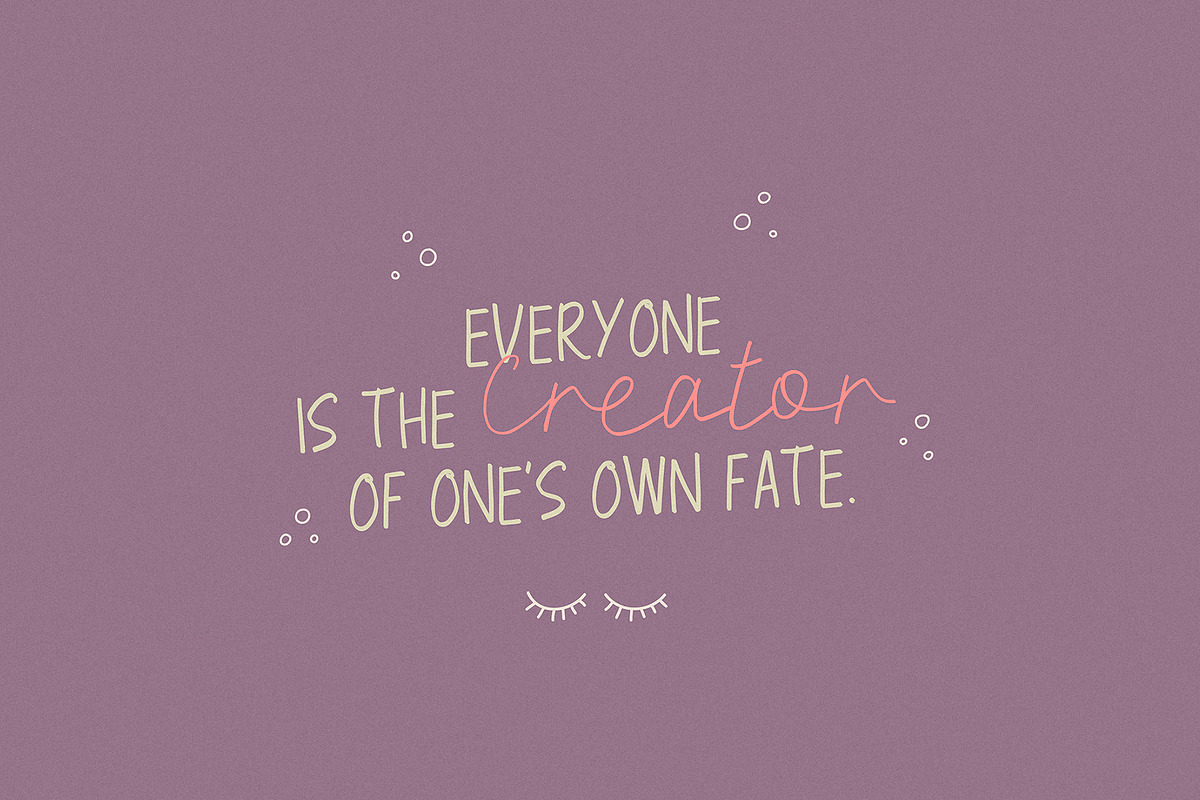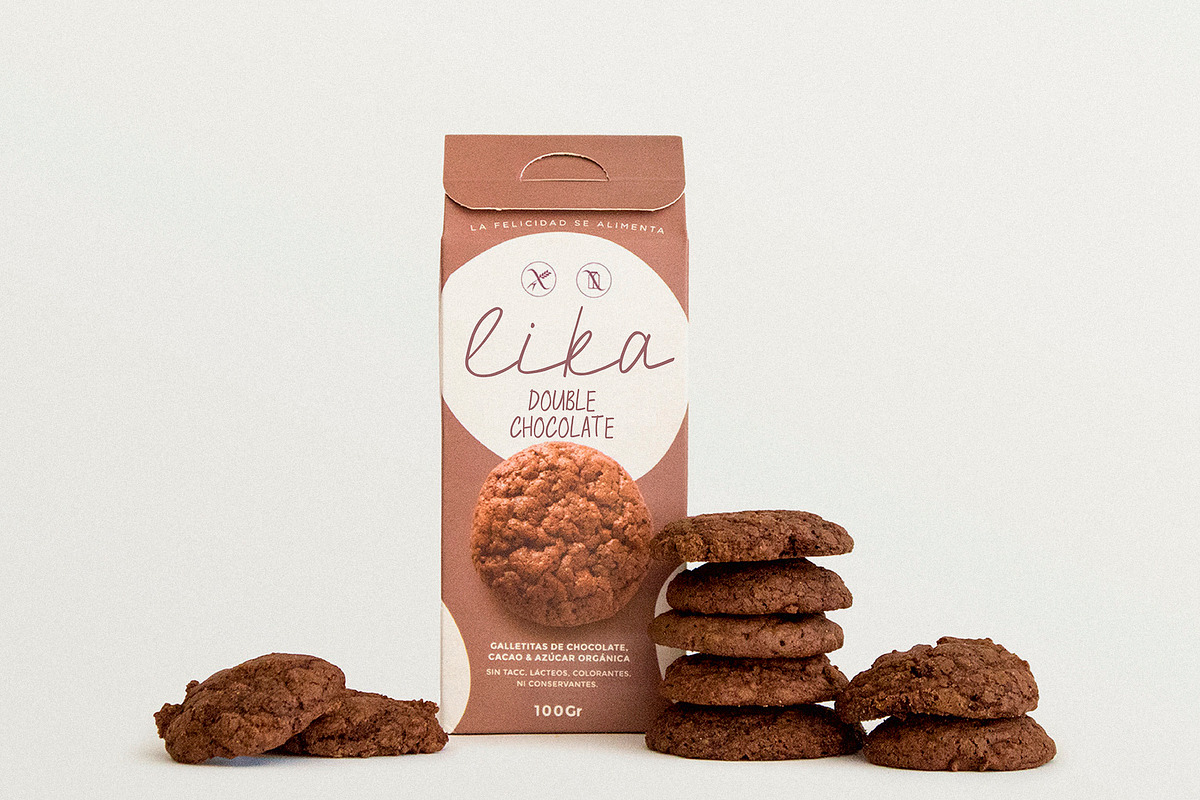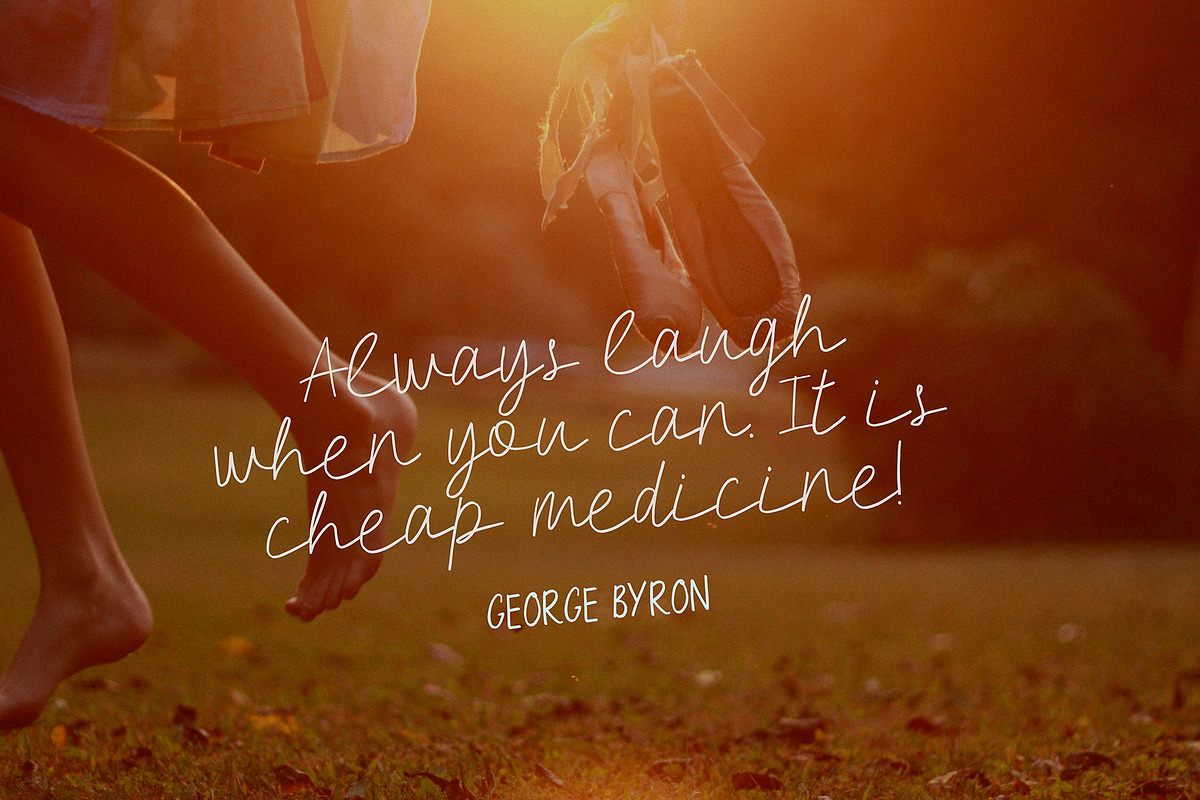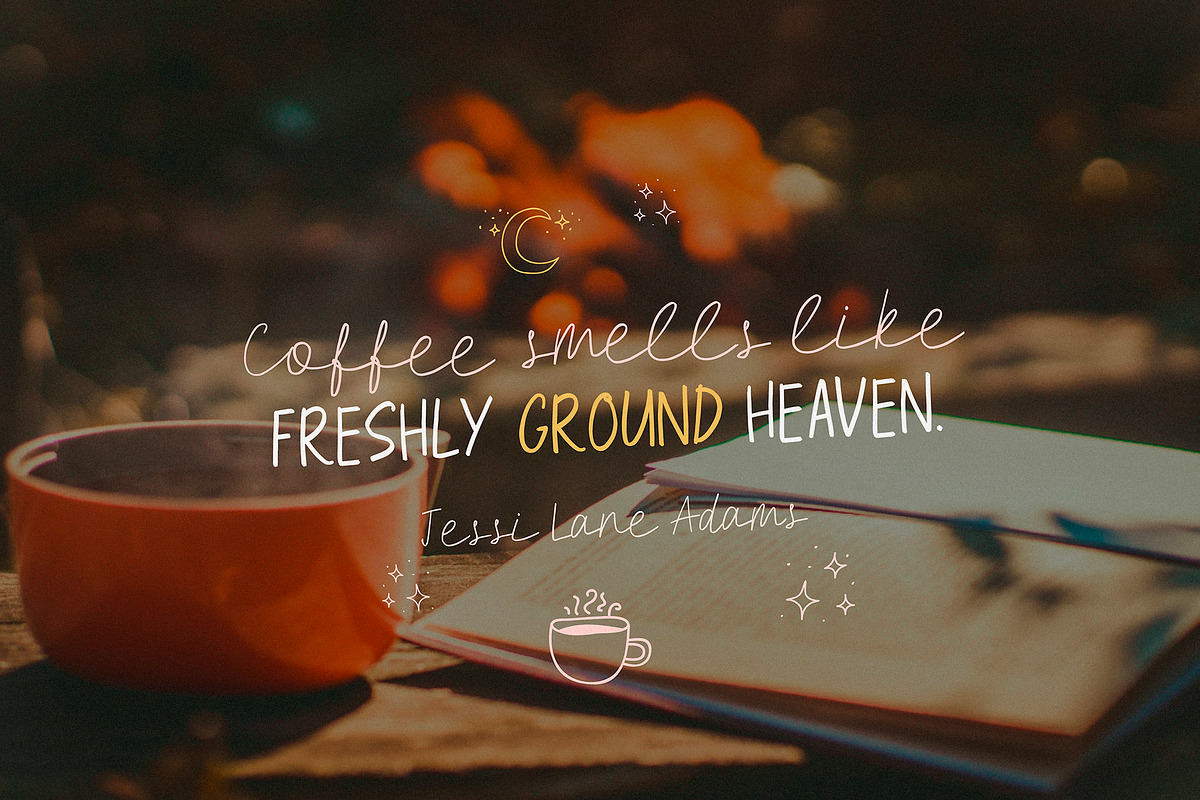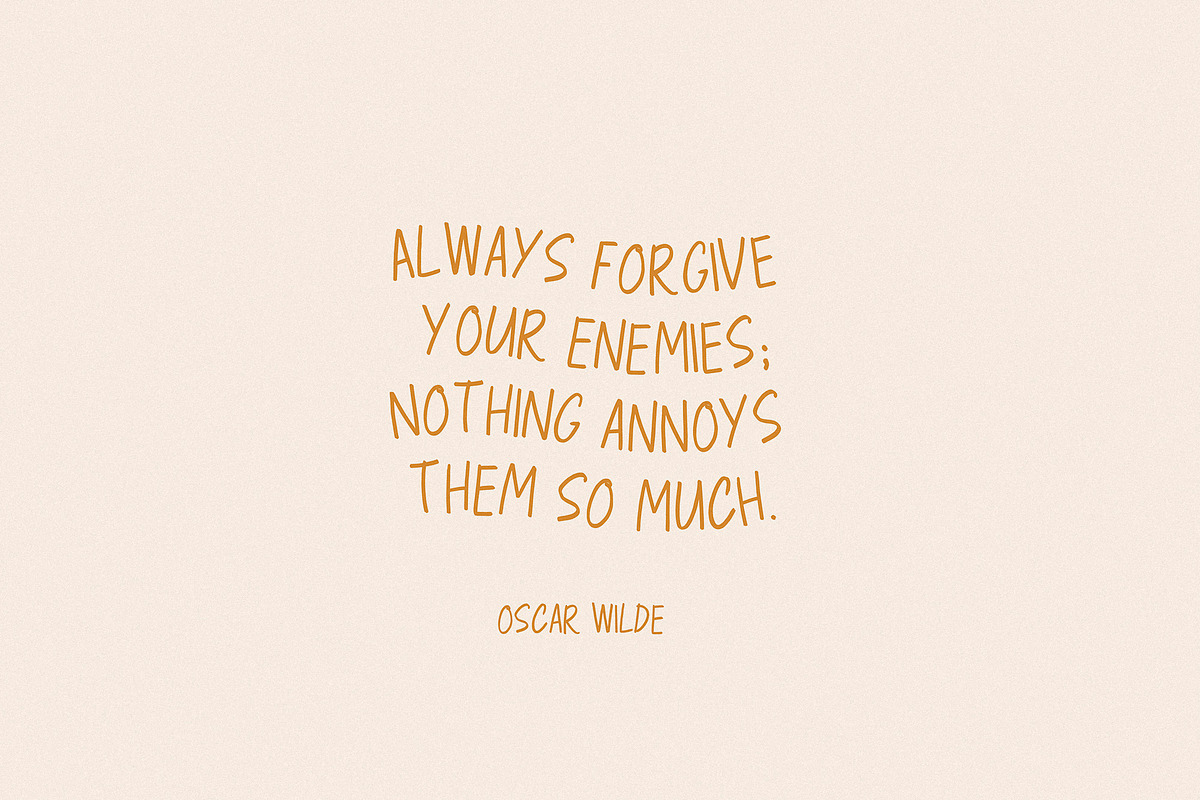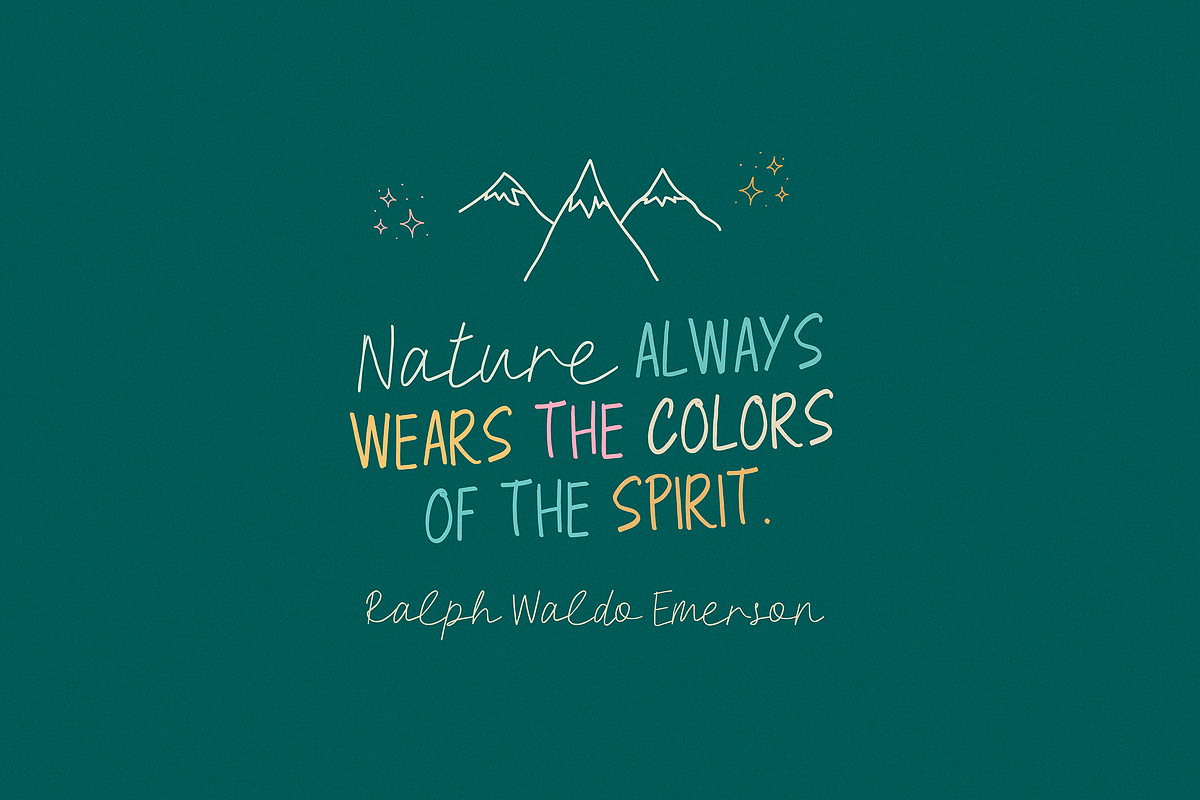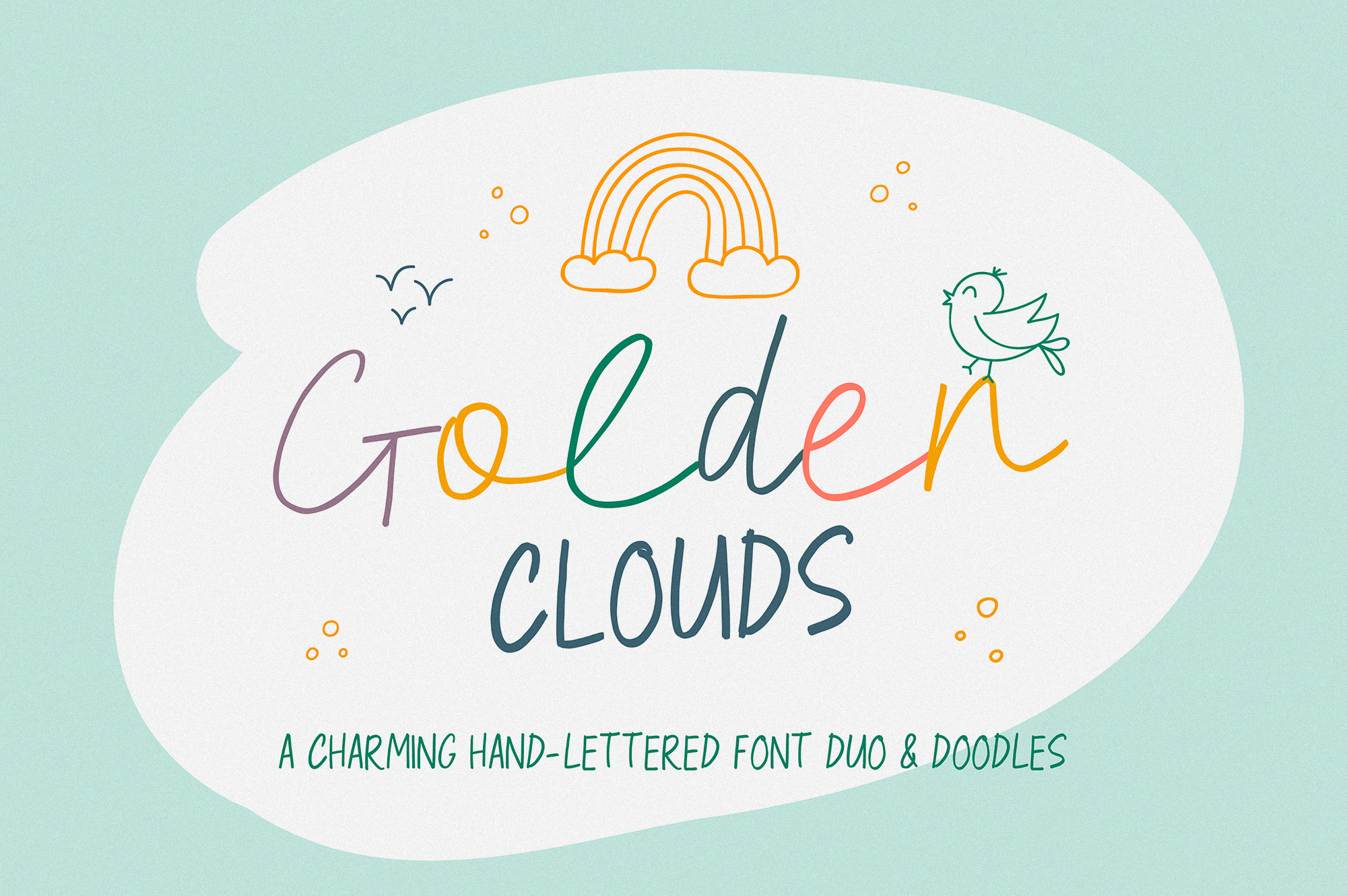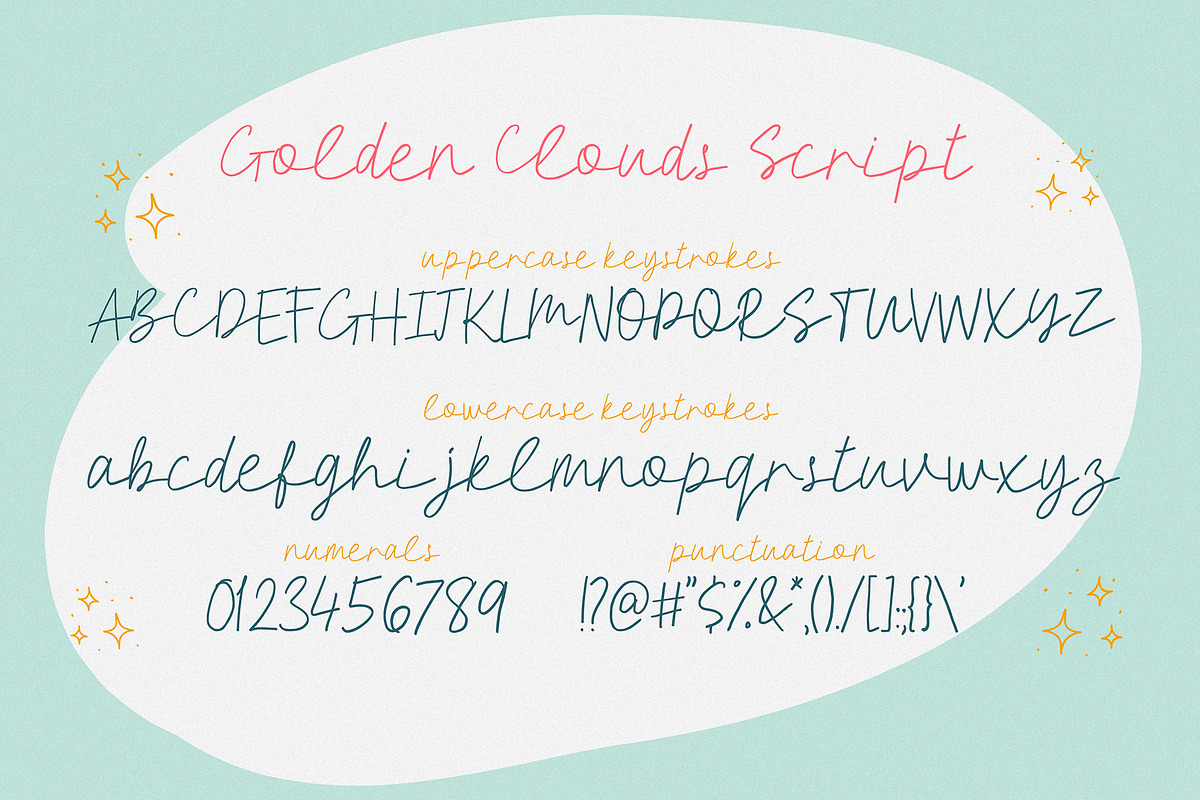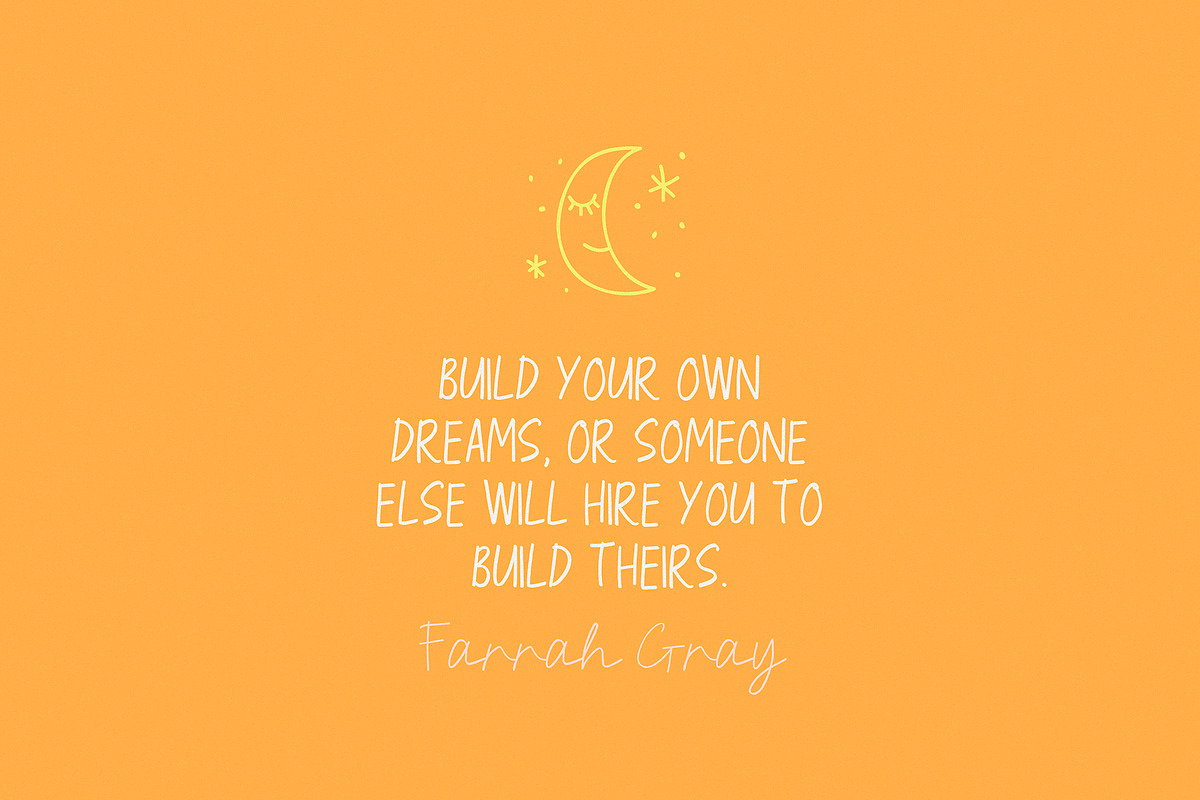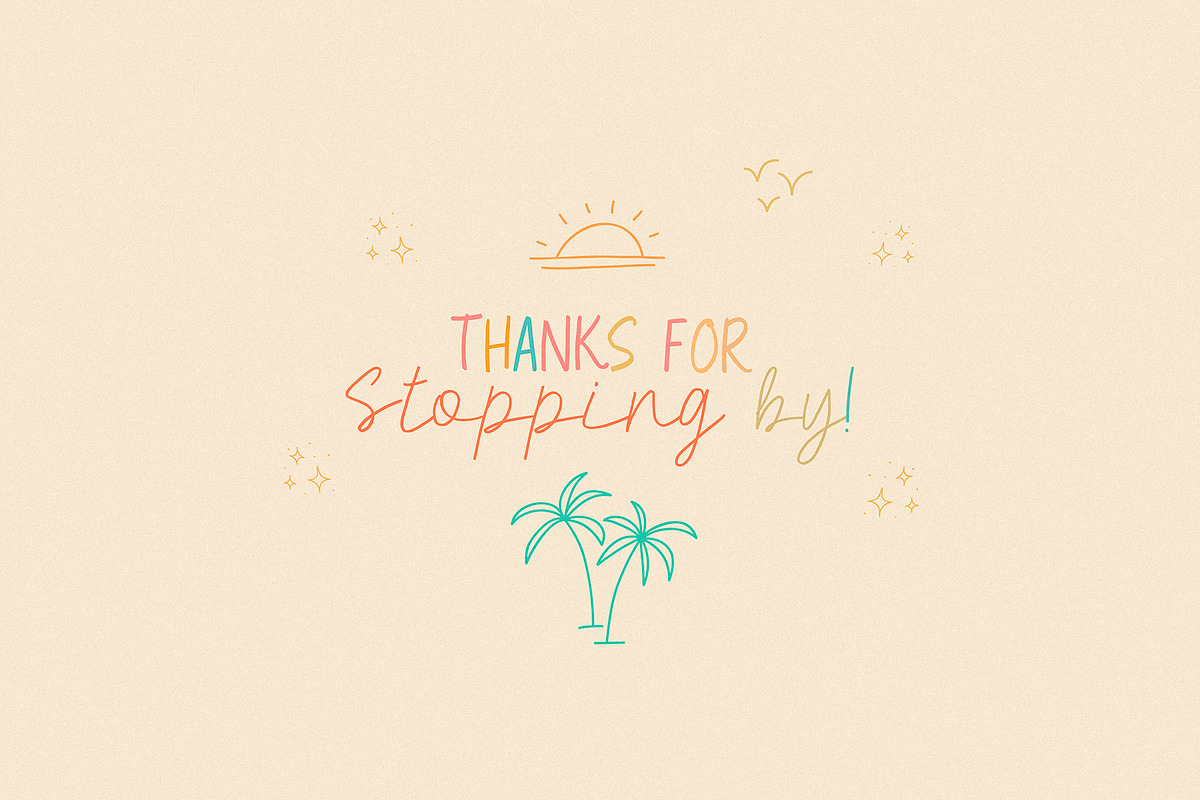
Golden Clouds Font Duo & Doodles
Say hello to Golden Clouds :) A charming and cute font duo with handwritten letters and doodles!!
Bring some irresistible fun to your design with Golden Clouds Font Duo! This playful font duo consists of a fast-flowing signature font and a charming font with small capital letters as the perfect companion. But that's not all - the set also includes a bonus Doodle font containing hand-drawn drawings designed to give your "Golden Clouds" fonts the appeal of handmade.
Golden Clouds Script • A clean, smooth handwritten signature font containing uppercase and lowercase characters, numbers and a wide range of punctuation marks.
Golden Clouds SmallCaps • Clean, charming handwritten font with capital letters.
Golden Clouds Doodles • A set of hand-drawn drawings designed in combination with Script and Small Caps fonts. Just set it as your own font and enter any character to create each drawing.
"Golden Clouds" is ideal for everyday use in greeting cards, illustrations, quotes, original branding, book covers, children's books, packaging and much more :)